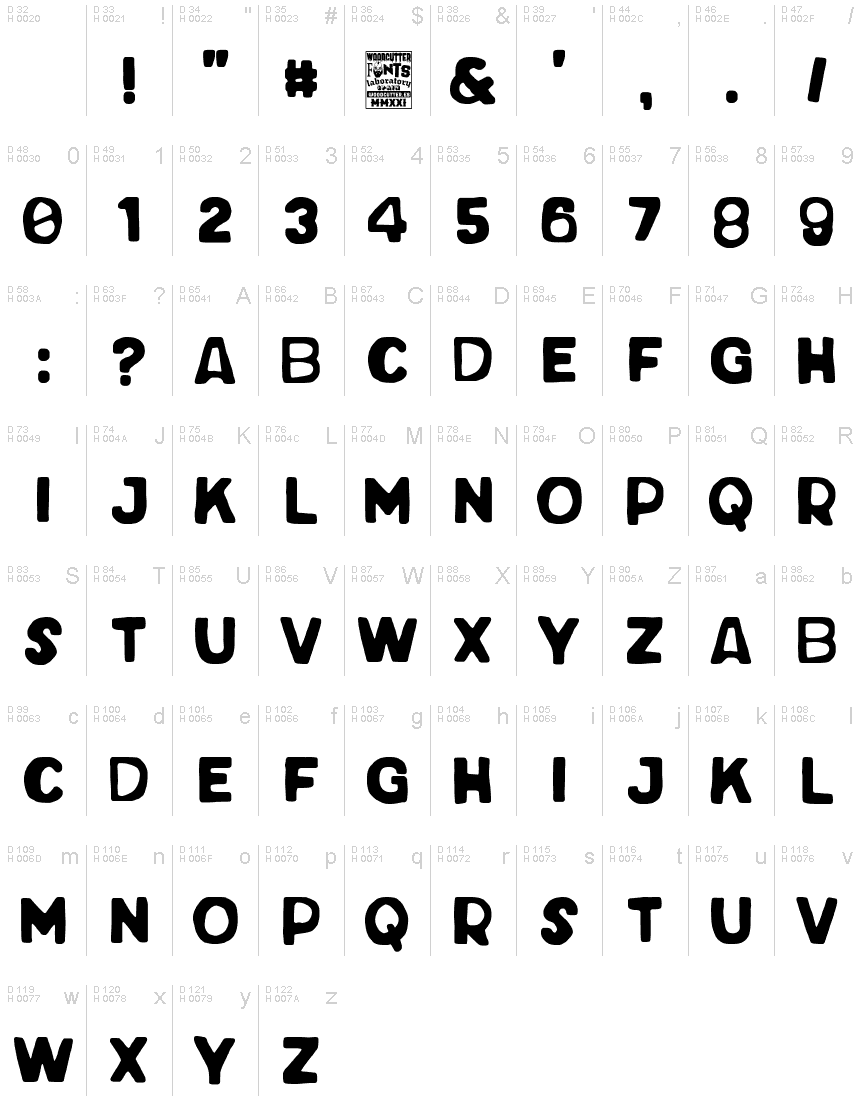
Pop Summer Fest
Looking for a fun, lively font to add some personality to your design projects? Look no further than Pop Summer Fest by Woodcutter! This extra-bold, cartoon-style display font is perfect for creating eye-catching headlines, posters, and event materials. With its playful curves and bubbly lettering, Pop Summer Fest is ideal for promoting everything from music festivals to children's parties. Use it to create bold logos or attention-grabbing social media graphics that are sure to stand out from the crowd. So why settle for a boring serif or sans-serif when you can add some character with Pop Summer Fest?